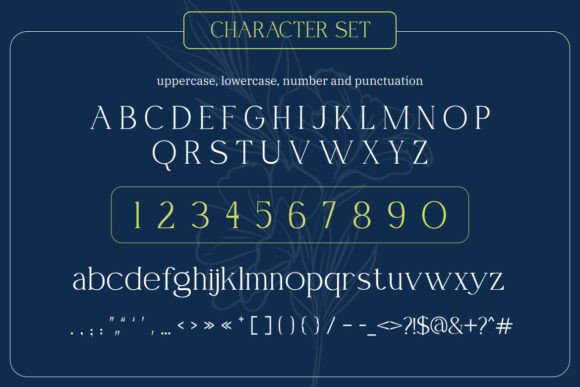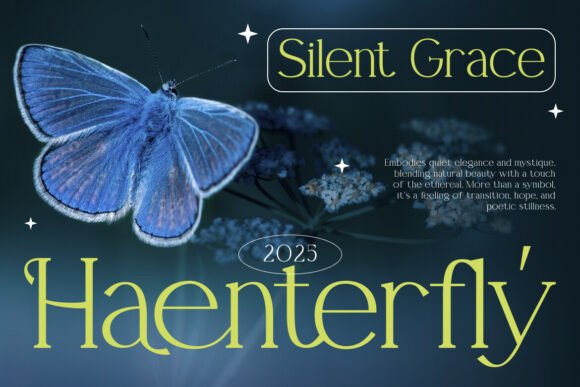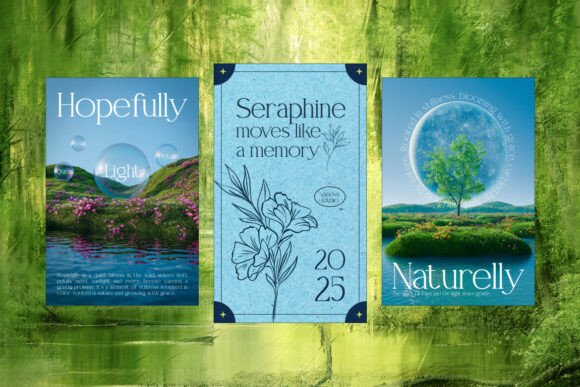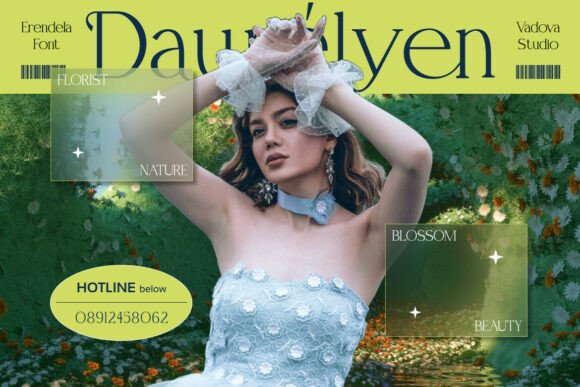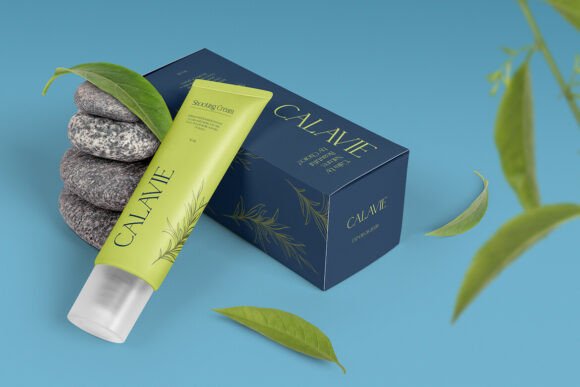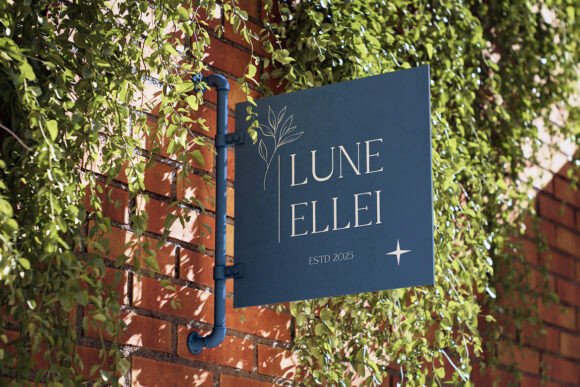
Discover the Timeless Elegance of Erendela Font
I’ll never forget the design project that led me to Erendela Font. I was working on a luxury branding campaign for an independent bridal boutique, and I was on the hunt for a font that would capture the essence of high-end elegance. After scouring through countless font libraries, I stumbled upon Erendela, and it was love at first sight! ✨
This sophisticated display typeface has an “ethereal-and-elegant” soul that immediately resonated with me. Its high-contrast serif letterforms, characterized by slender stems, graceful curves, and sharp, refined terminals, radiate a modern luxury aesthetic that perfectly aligned with my client’s vision.
An Honest Review of Erendela Font
- ✨ Timeless beauty: Erendela’s classic charm is reminiscent of traditional luxury typography, making it perfect for high-end branding and editorial projects.
- ✅ Balanced proportions: The font’s carefully crafted letterforms ensure optimal readability and harmony, even at large sizes.
- 💫 Ethereal elegance: Erendela’s slender stems and refined terminals evoke a sense of sophistication and glamour.
- 🎨 Versatility: This font is suitable for a wide range of applications, from luxury packaging to social media headers.
While Erendela is an exceptional font, there are a few minor considerations to keep in mind: 🤔
- ⚠️ Legibility at small sizes: Due to its high-contrast nature, Erendela may not be the best choice for body text or small font sizes.
- ⚠️ Limited use of OpenType features: While Erendela supports some OpenType features, it may not offer the same level of customization as other fonts.
The Backstory of Erendela Font
Erendela was designed with the intention of capturing the essence of timeless luxury and elegance. Its creator drew inspiration from traditional serif typography, refining and modernizing the classic letterforms to create a sophisticated display font. 💫
| Font Name | Erendela Font |
| Author | Vadova Std |
Q: What is Erendela Font best suited for?
A: Erendela is ideal for luxury branding, high-end editorial projects, and premium packaging, particularly for industries like fashion, beauty, and hospitality.
Q: Can I use Erendela for body text?
A: While Erendela is an exceptional display font, it may not be the best choice for body text due to its high-contrast nature and potential legibility issues at small sizes.
Q: Does Erendela support OpenType features?
A: Yes, Erendela supports some OpenType features, including stylistic alternates and glyphs, which can be accessed in compatible design software.
Q: Is Erendela suitable for digital use?
A: Absolutely! Erendela’s elegant design and balanced proportions make it perfect for digital applications, from social media headers to website titles.